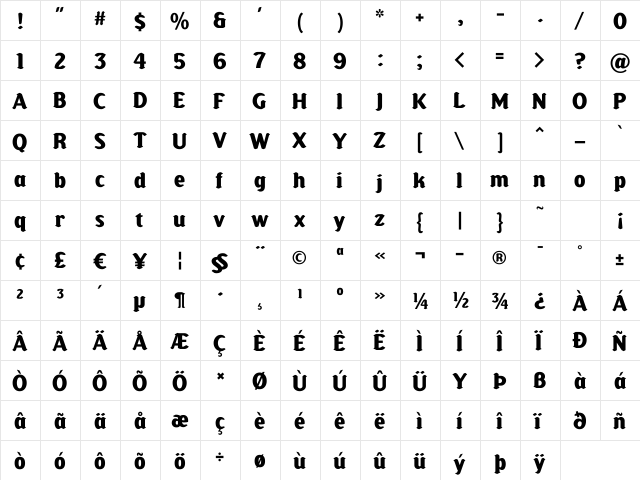
Almonda Regular Font Preview
Almonda Regular
Almonda Regular Font Details
Design Context for Almonda Typeface
Almonda offers clean, dependable letterforms without strong stylistic allegiance, making it a practical choice for designers who need flexibility.